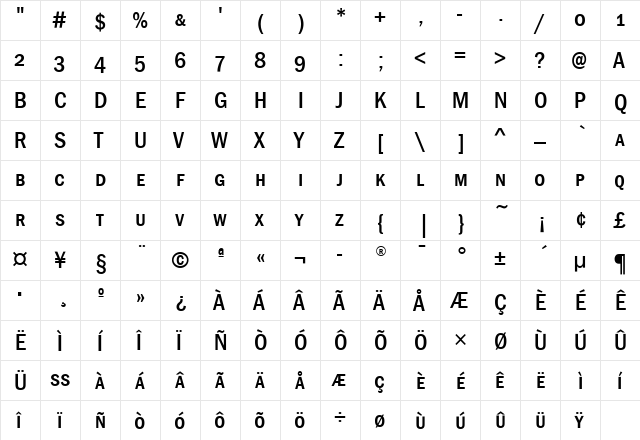
FranklinGotCdMdSCITC Medium
Design Context for FranklinGotCdMdSCITC Typeface
FranklinGotCdMdSCITC offers clean, dependable letterforms without strong stylistic allegiance, making it a practical choice for designers who need flexibility.